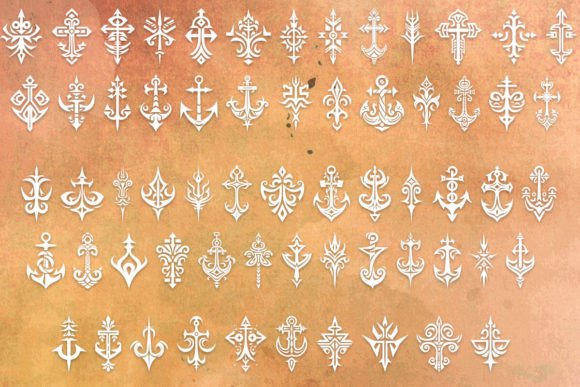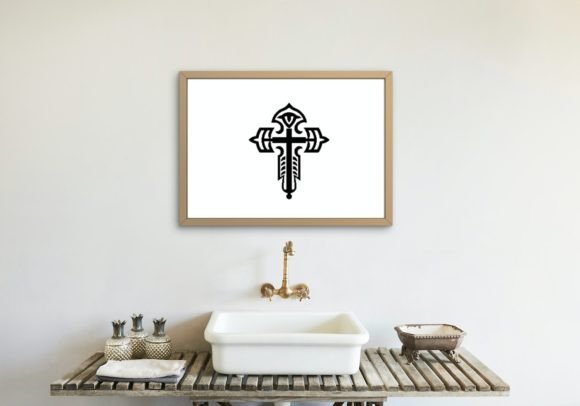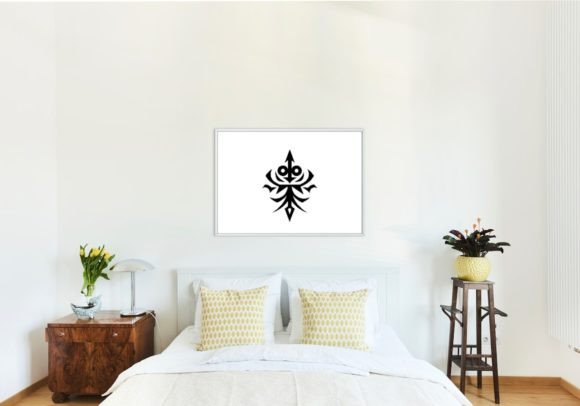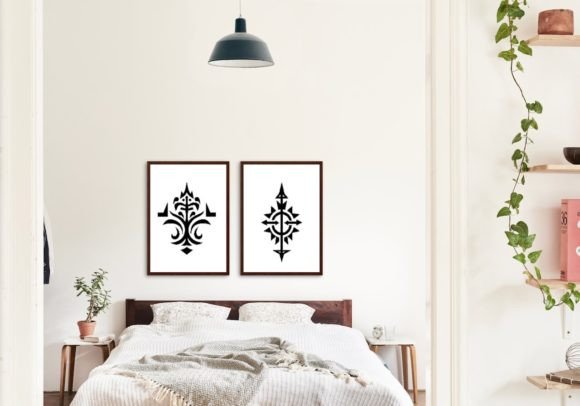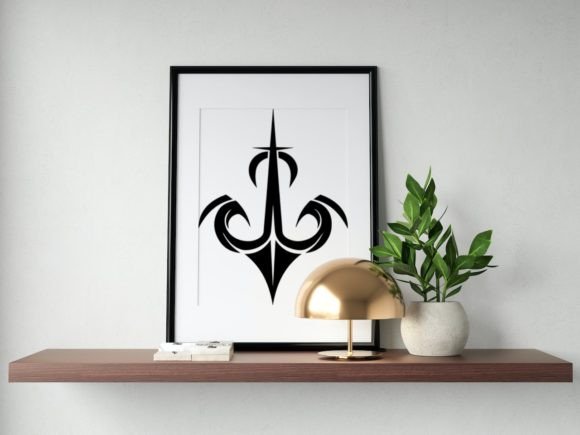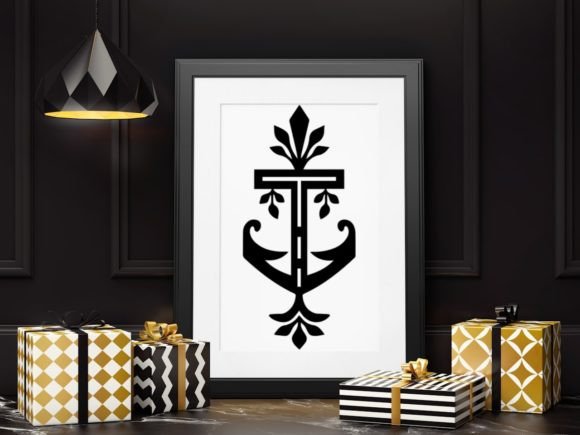
Elevate Your Luck with Good Luck Anchor Dingbats Fonts!
Infuse your designs with good fortune using the Good Luck Anchor Font, a unique and captivating dingbats font that adds a touch of positivity to any project. As a designer or crafter, you’re constantly on the lookout for innovative ways to make your work stand out, and this font is sure to bring a dash of luck to your creations.
The Power of Good Luck Anchor Font
The Good Luck Anchor Font is more than just a collection of symbols; it’s a way to convey a message of optimism and good fortune. The anchor symbol, often associated with stability and hope, is a powerful icon that can be used in a variety of contexts, from inspirational quotes to creative branding projects. With this font, you can easily incorporate the Good Luck Anchor into your designs, adding a meaningful and eye-catching element that resonates with your audience.
What Makes Good Luck Anchor Font Special?
• Unique Design: The Good Luck Anchor Font features a distinctive design that sets it apart from other dingbats fonts. Its bold lines and charming details make it perfect for a wide range of applications, from digital graphics to print materials.
• Versatile: The Good Luck Anchor Font can be used in a variety of projects, including social media graphics, blog posts, posters, and more.
• Scalable: This font is highly scalable, ensuring that it looks great in any size or resolution.
How to Use Good Luck Anchor Font in Your Designs
Using the Good Luck Anchor Font in your designs is simple. Here are a few ideas to get you started:
• Inspirational Quotes: Add a motivational touch to your quotes with the Good Luck Anchor Font. Use it to create eye-catching social media posts or beautiful print materials.
• Branding Projects: Incorporate the Good Luck Anchor Font into your branding projects to convey a message of stability and hope.
• DIY Crafts: Use the Good Luck Anchor Font to add a personal touch to your DIY crafts, such as handmade cards or gift tags.
• Web Design: Add a touch of personality to your website with the Good Luck Anchor Font. Use it to create engaging headings, buttons, or icons.
Tips and Tricks for Getting the Most Out of Good Luck Anchor Font
Here are a few tips and tricks to help you get the most out of the Good Luck Anchor Font:
• Experiment with Colors: Try out different colors and gradients to give your designs a unique look.
• Mix and Match: Combine the Good Luck Anchor Font with other fonts to create interesting and dynamic designs.
• Play with Size: Experiment with different font sizes to add visual interest to your designs.
The Good Luck Anchor Font is a versatile and captivating dingbats font that can add a touch of good fortune to any design project. With its unique design, ease of use, and scalability, it’s the perfect addition to any designer’s or crafter’s toolkit. So why not give it a try? Elevate your luck and infuse your designs with positivity using the Good Luck Anchor Font.
Get Ready to Spread Good Fortune with Good Luck Anchor Font!